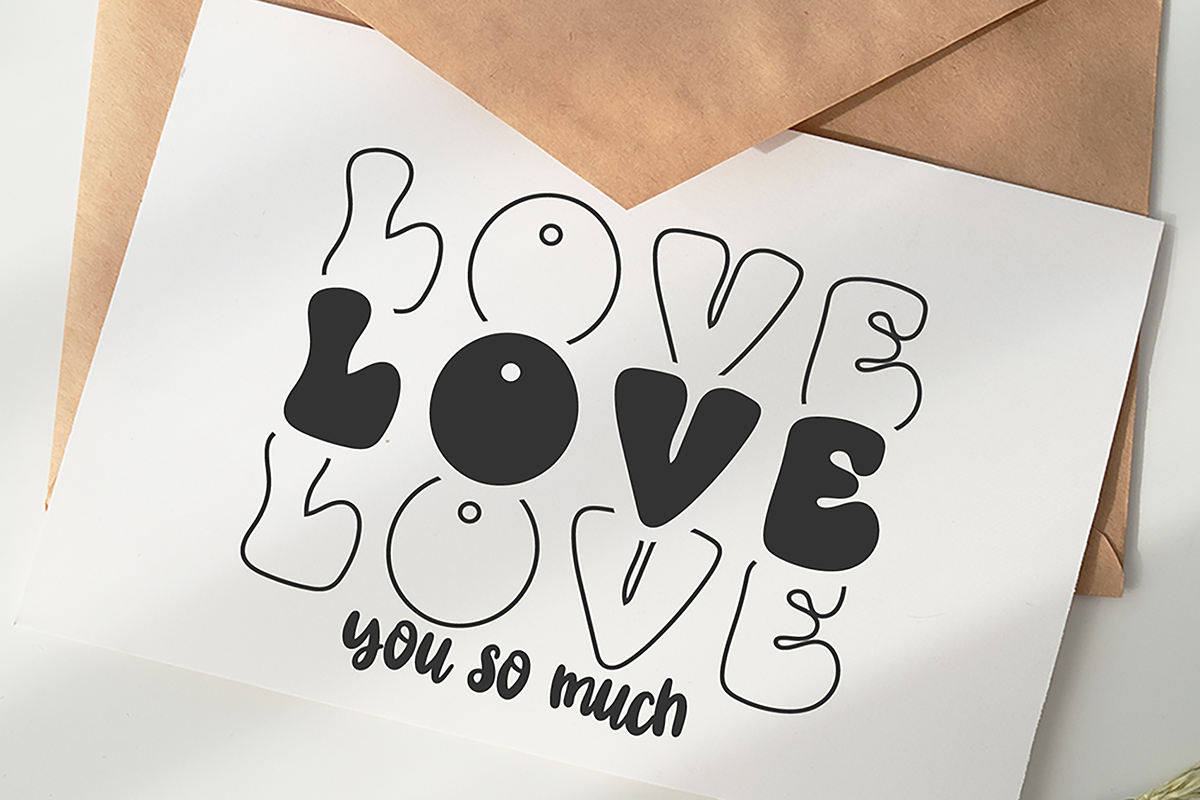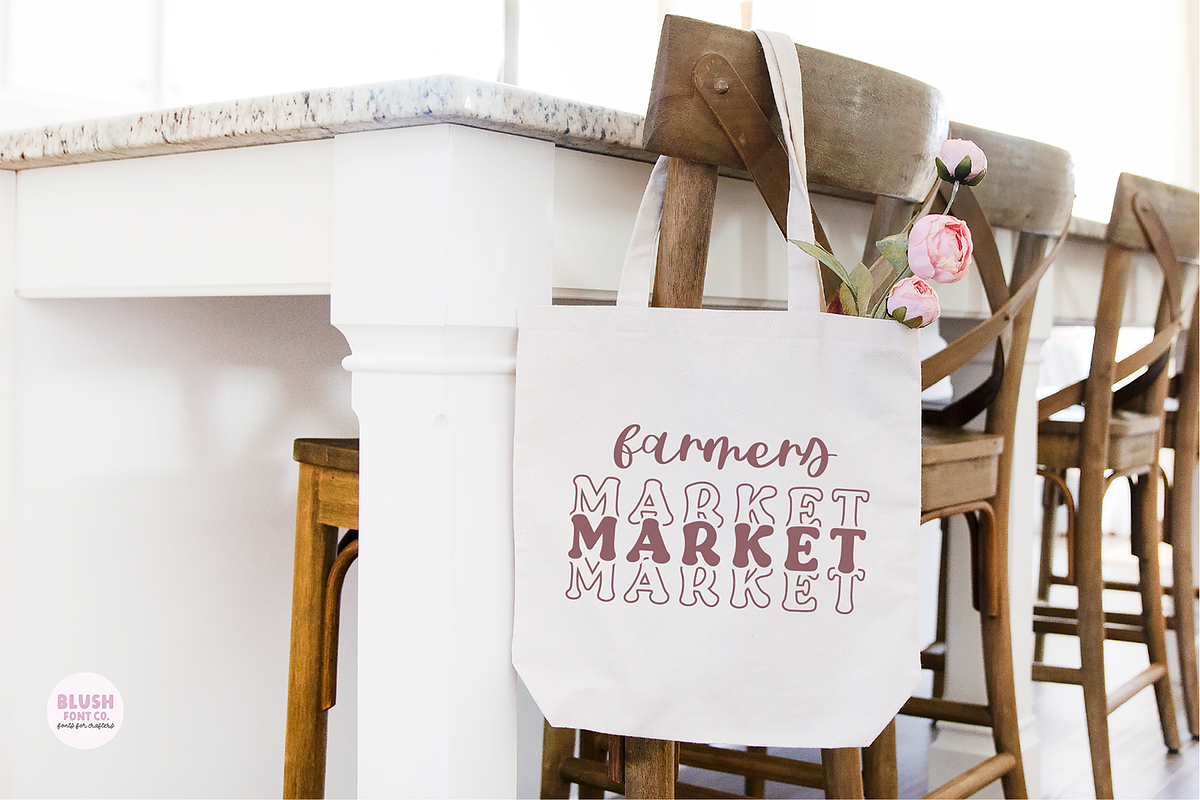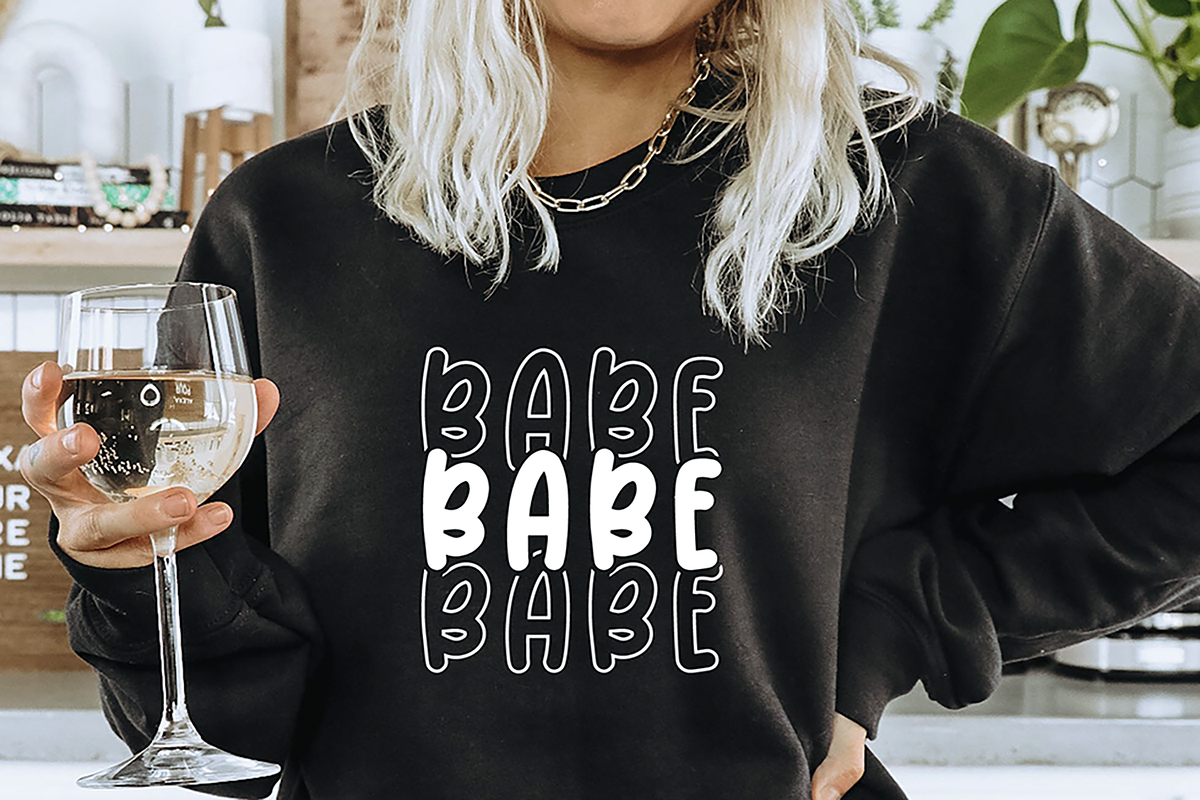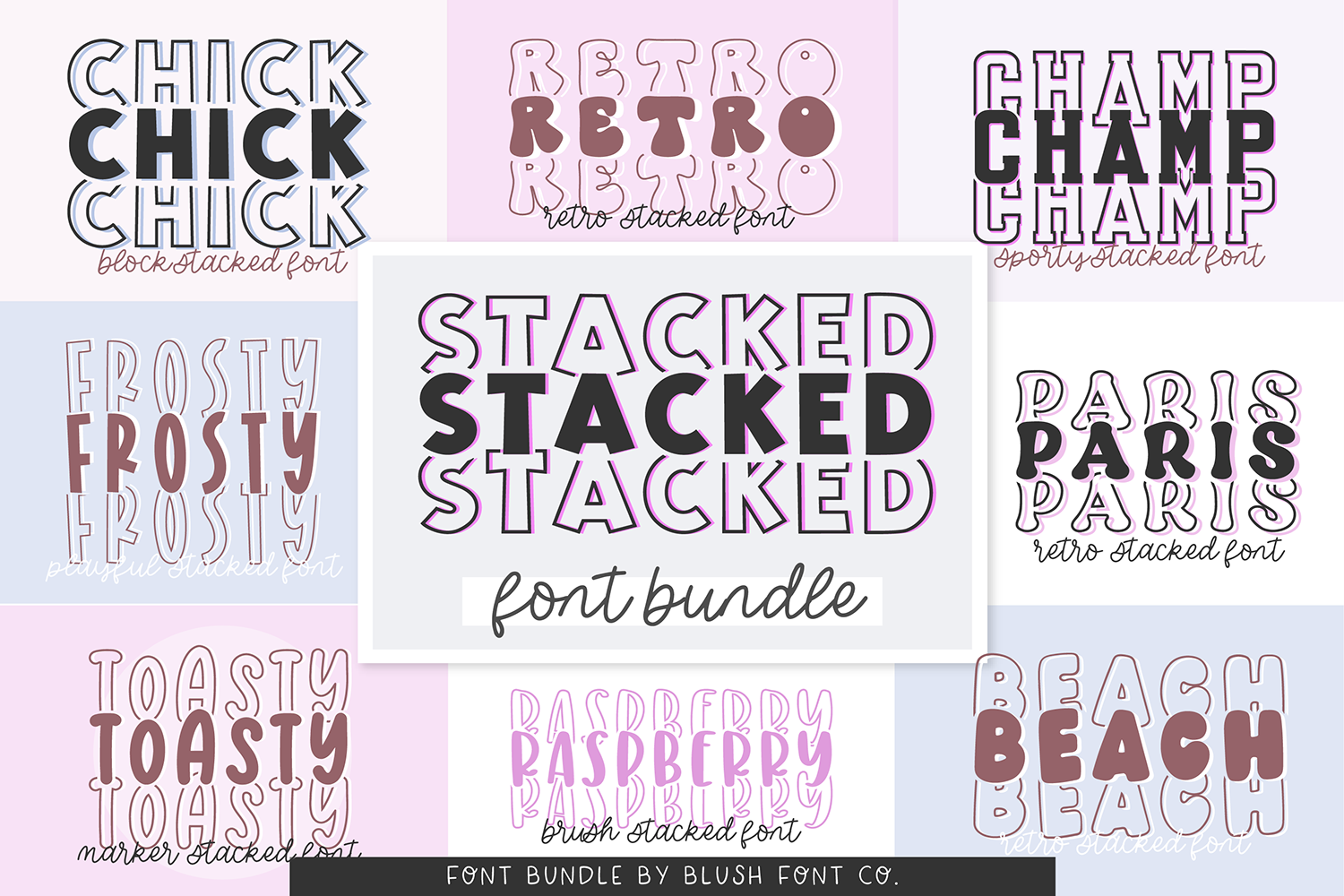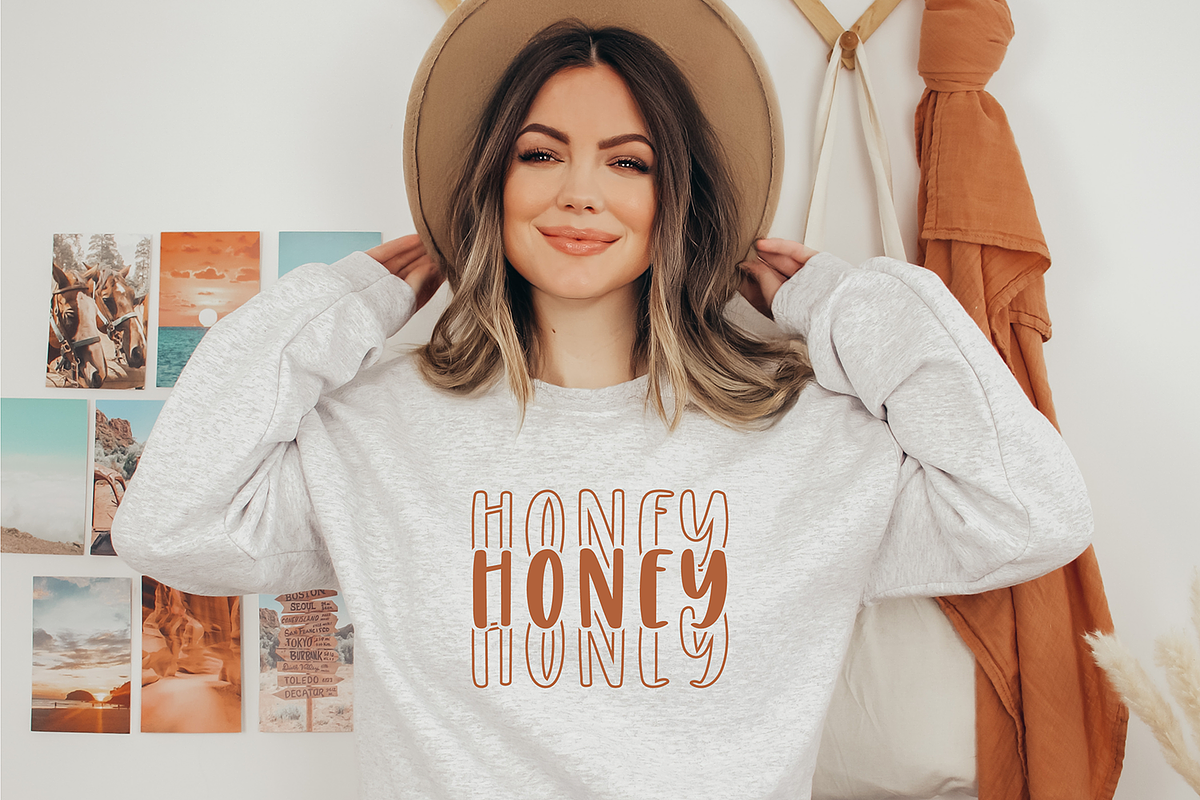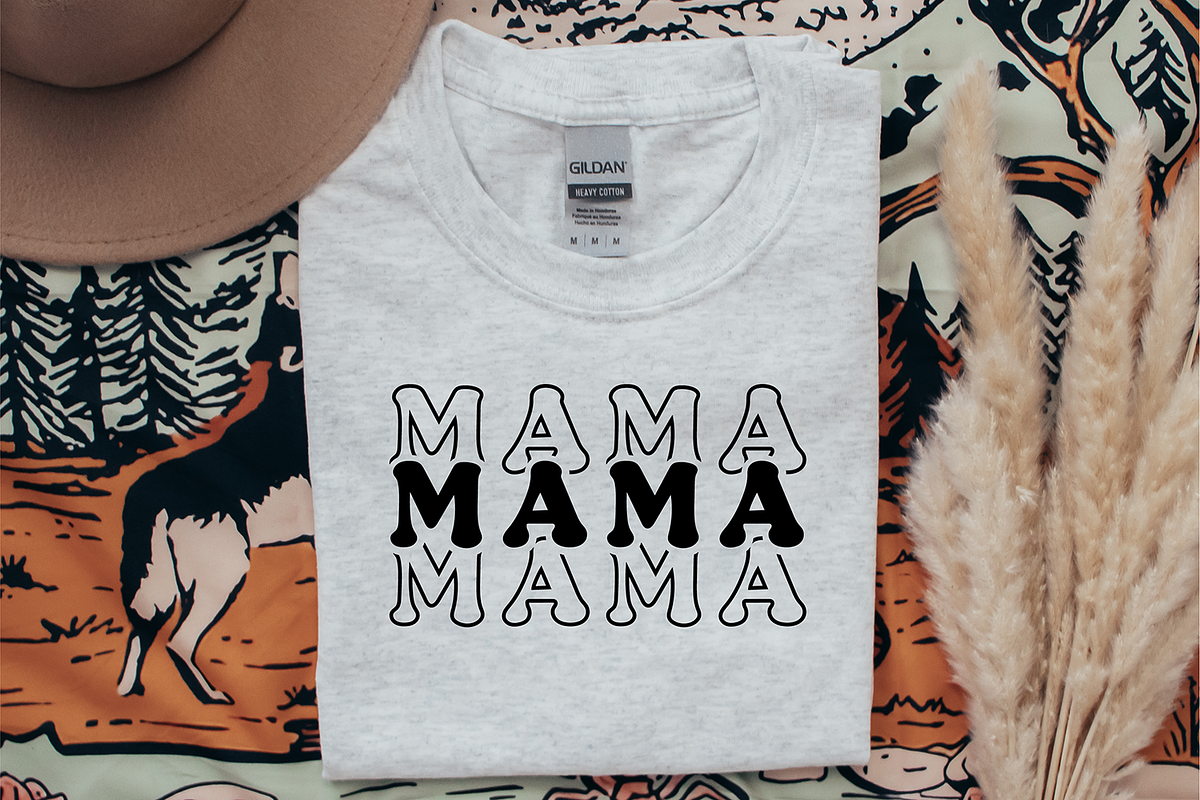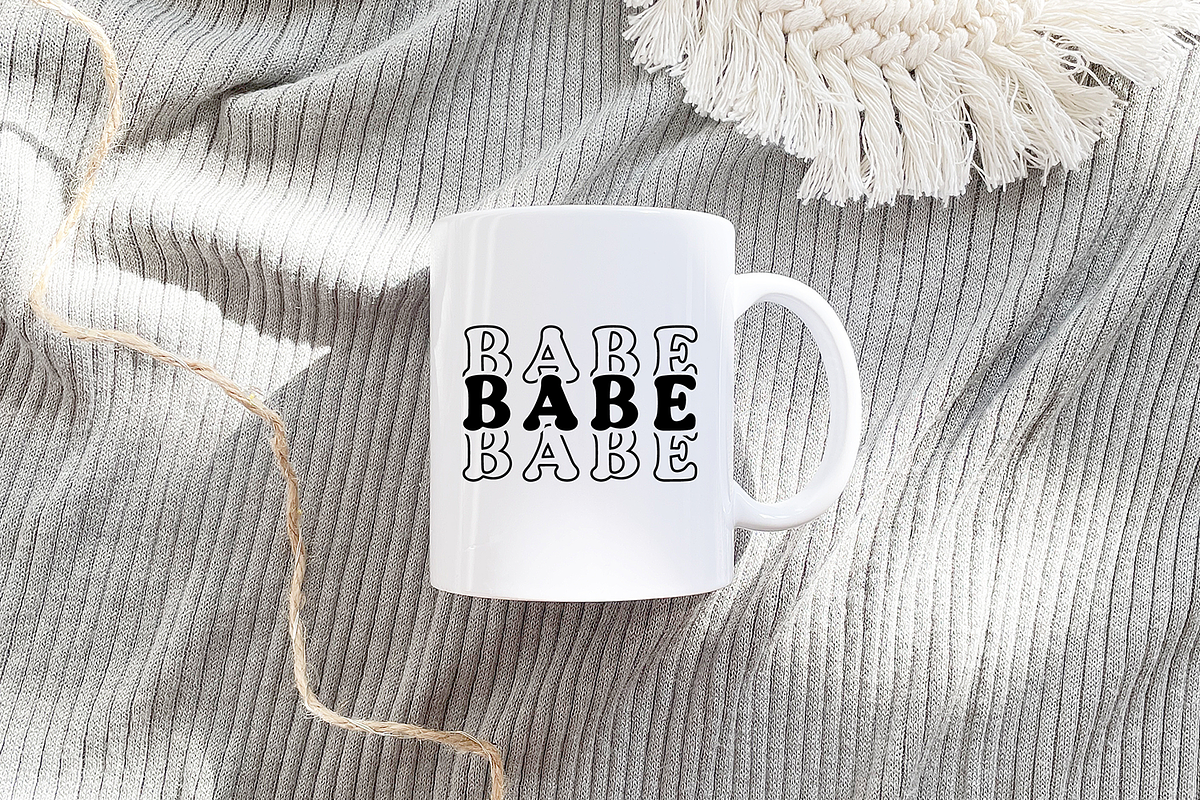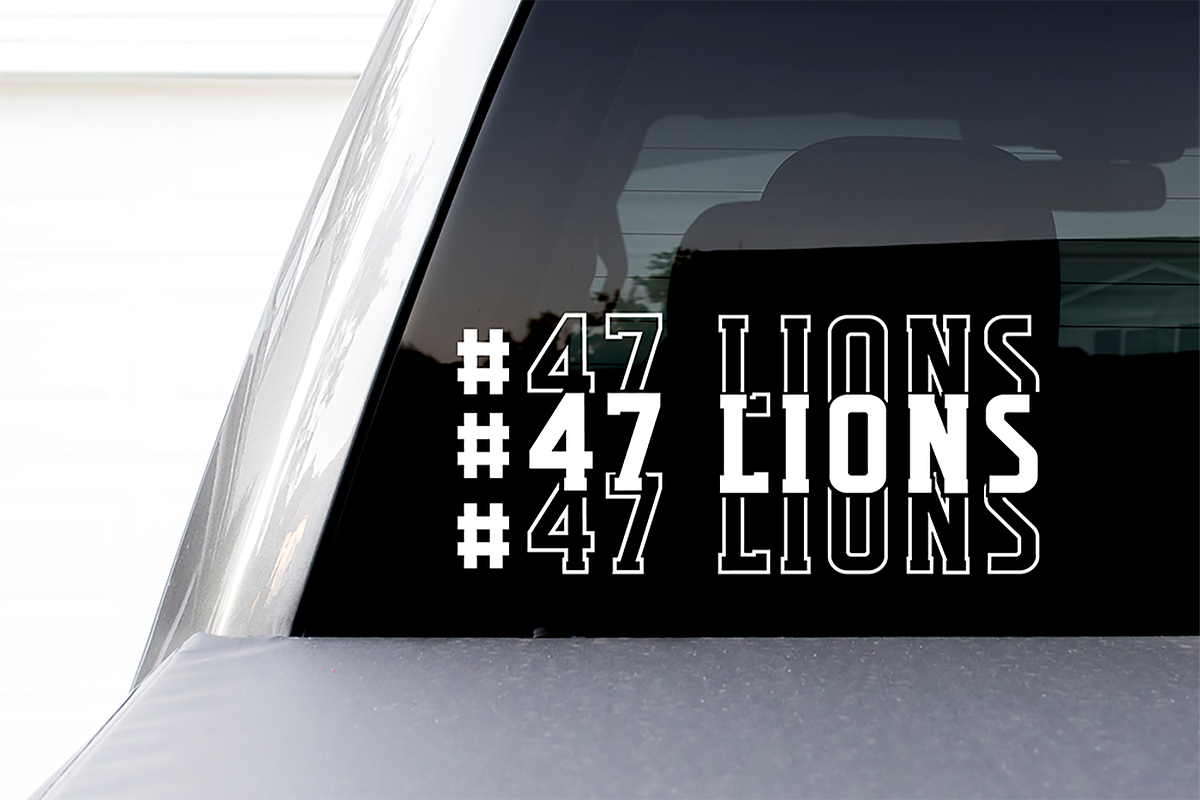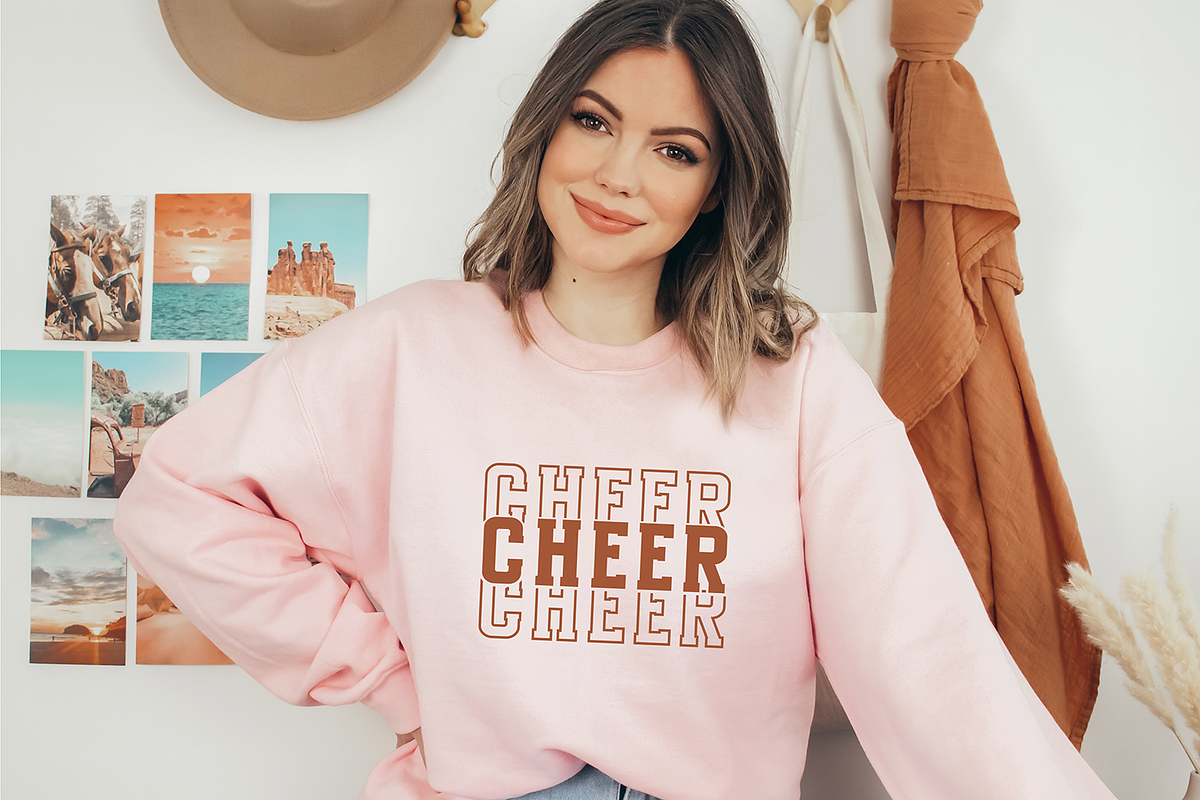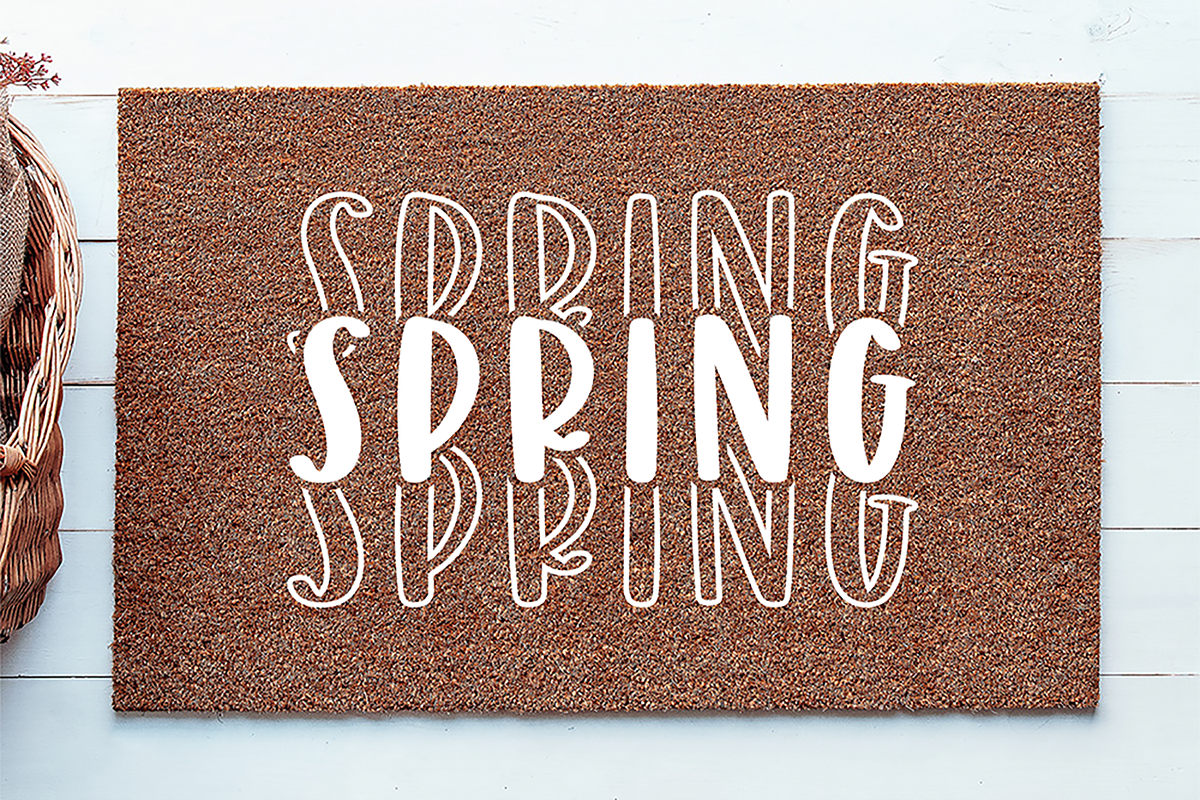
TRENDY STACKED FONT BUNDLE
8 trendy stacked fonts in all different styles.
These stacked/mirrored fonts are trendy and perfect for your tshirt designs, retro svgs, mug designs, and even fun in procreate.